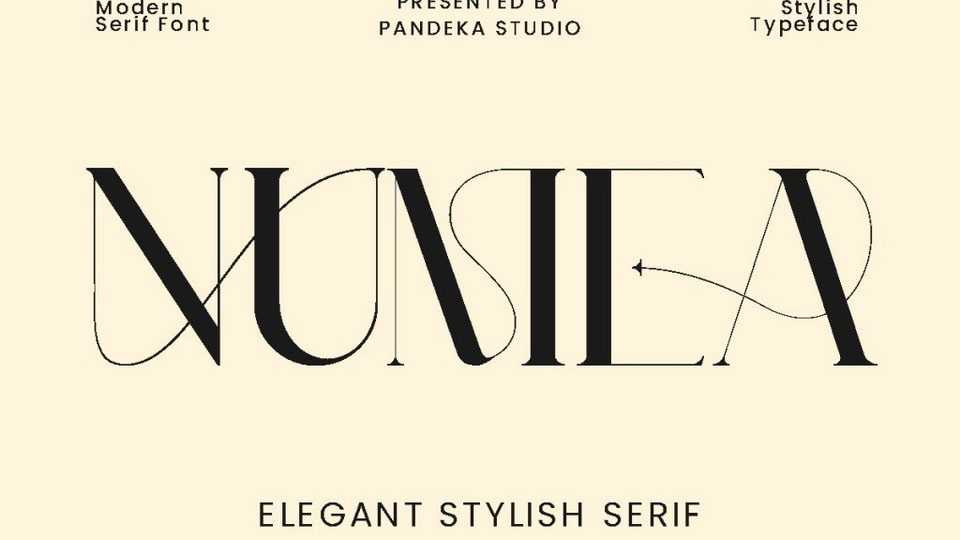
Download Numea font, a classic nineties retro typeface with a complementary italic version. With this font we make it different from the regular and make a shape.